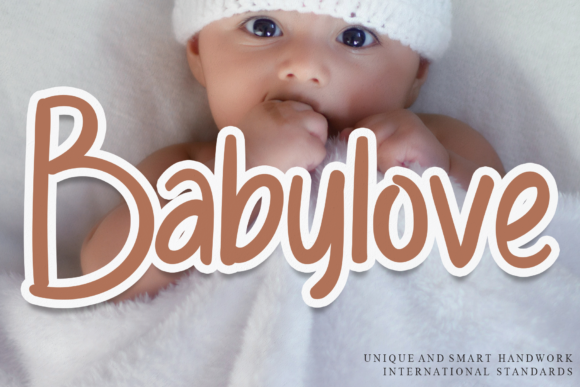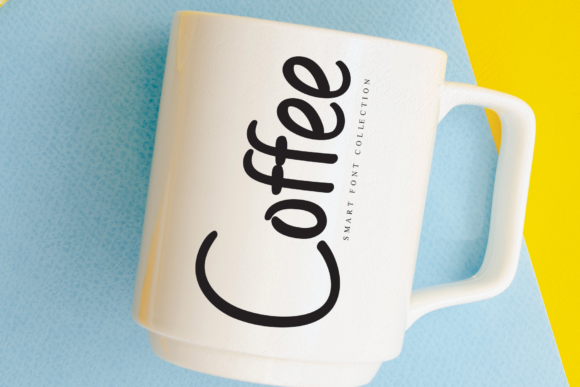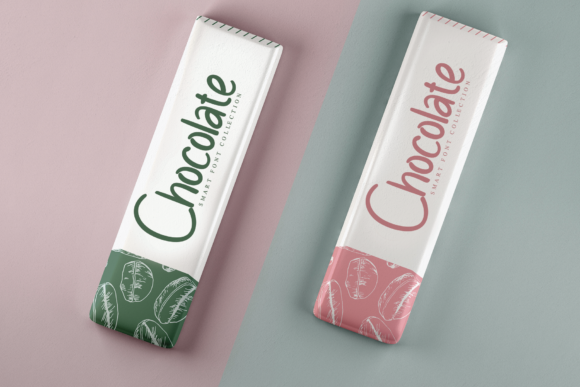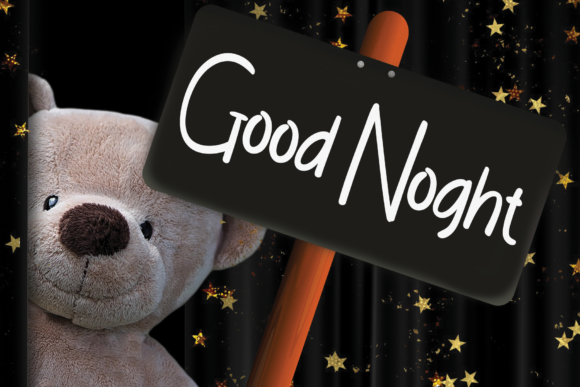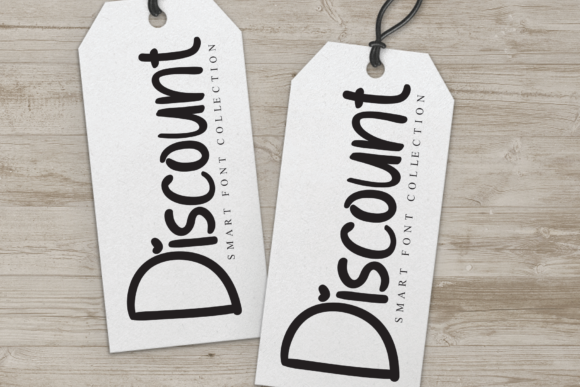
Babylove Font
About Babylove Font
Babylove is a simple, all round and clean handwritten font. Its flexibility and neat style will brighten up each of your designs. Have fun with this cool font and explore its endless variations.